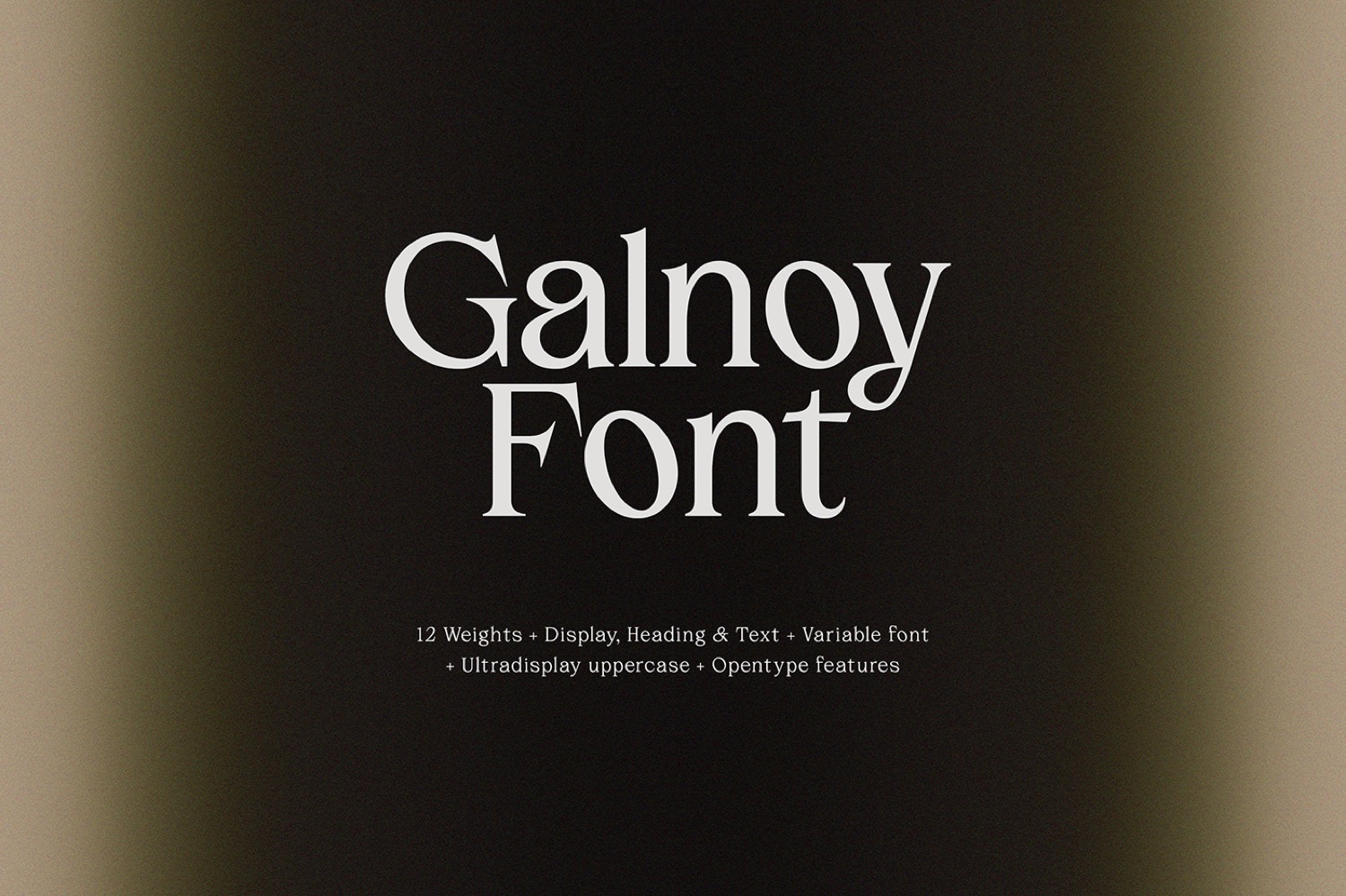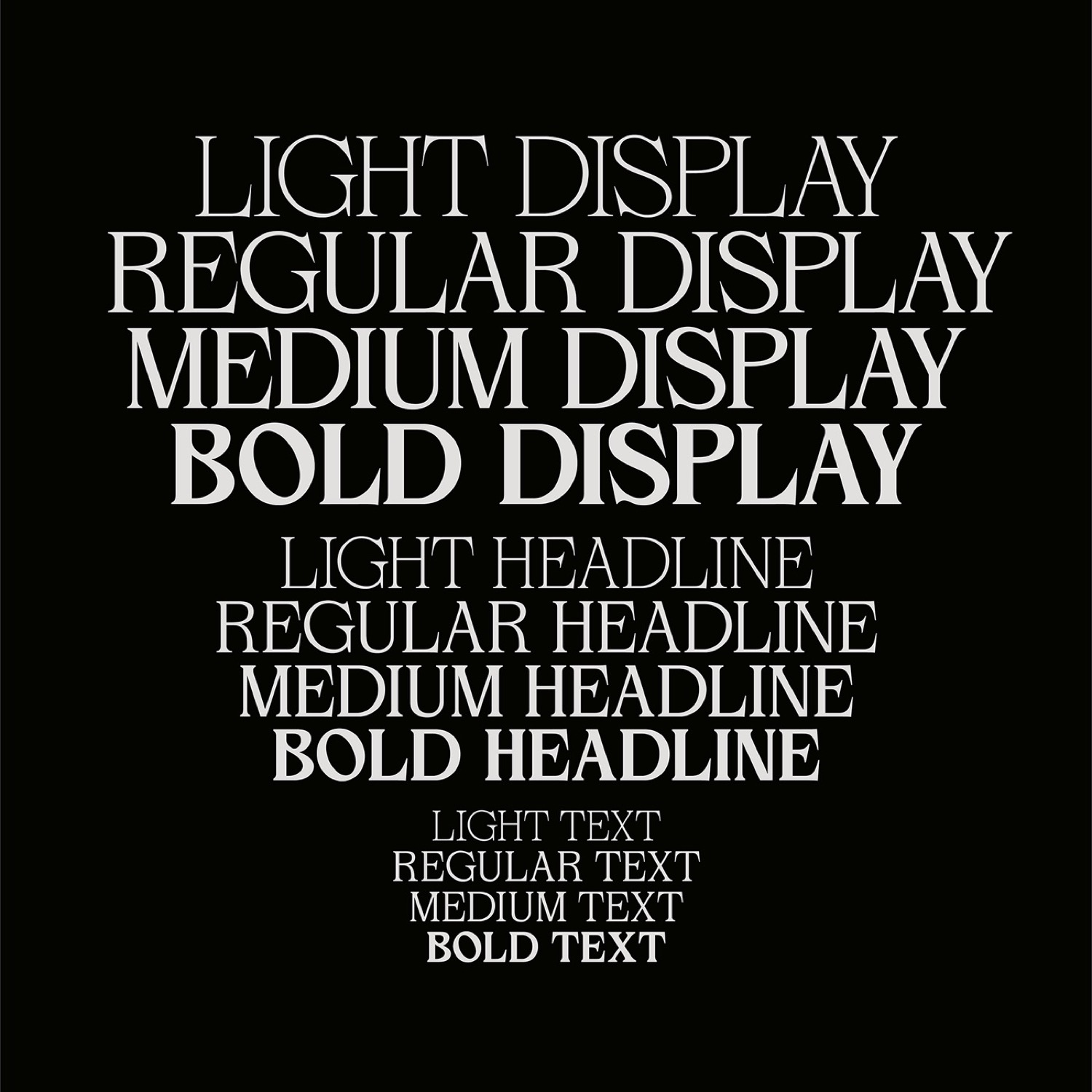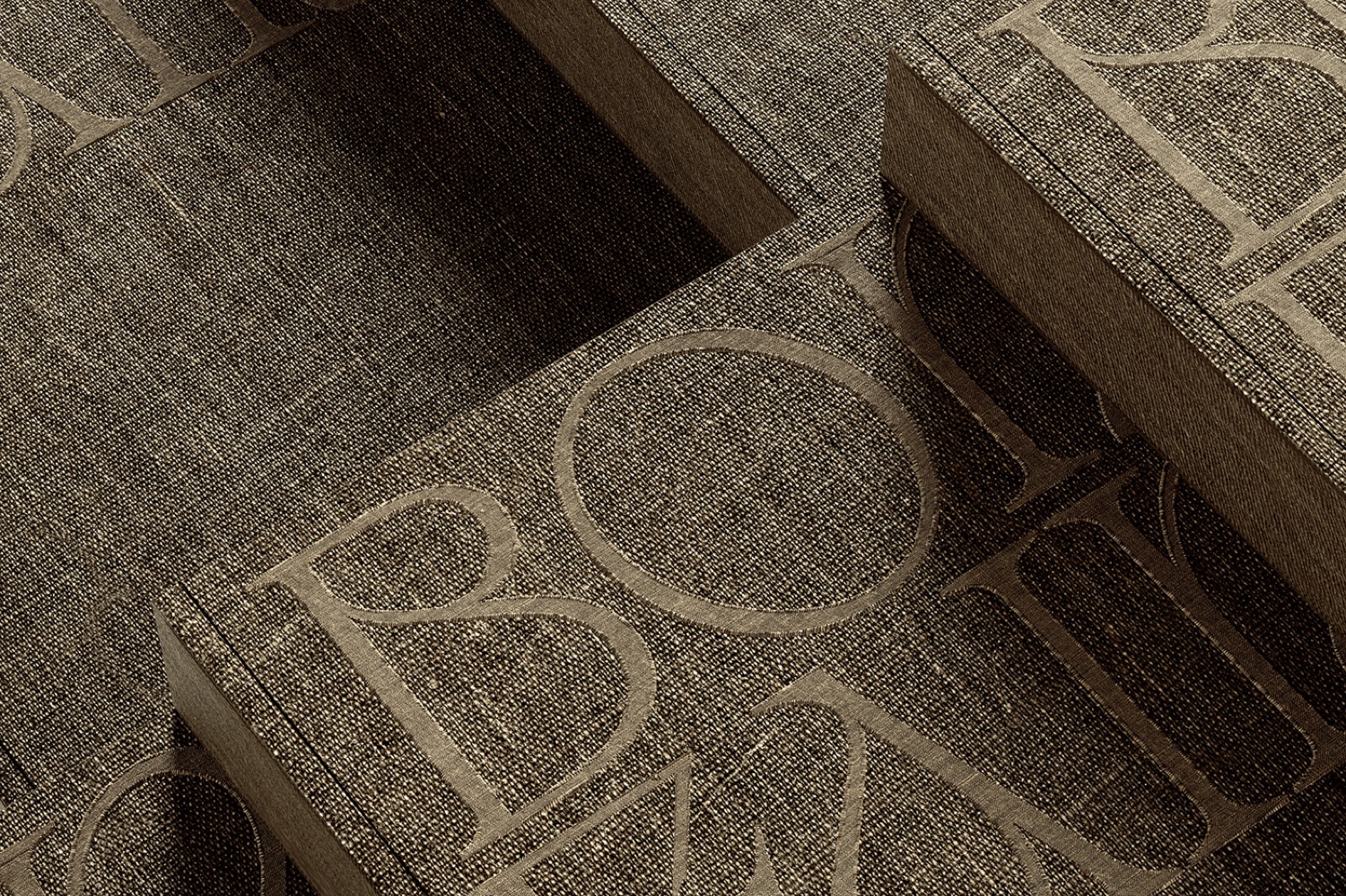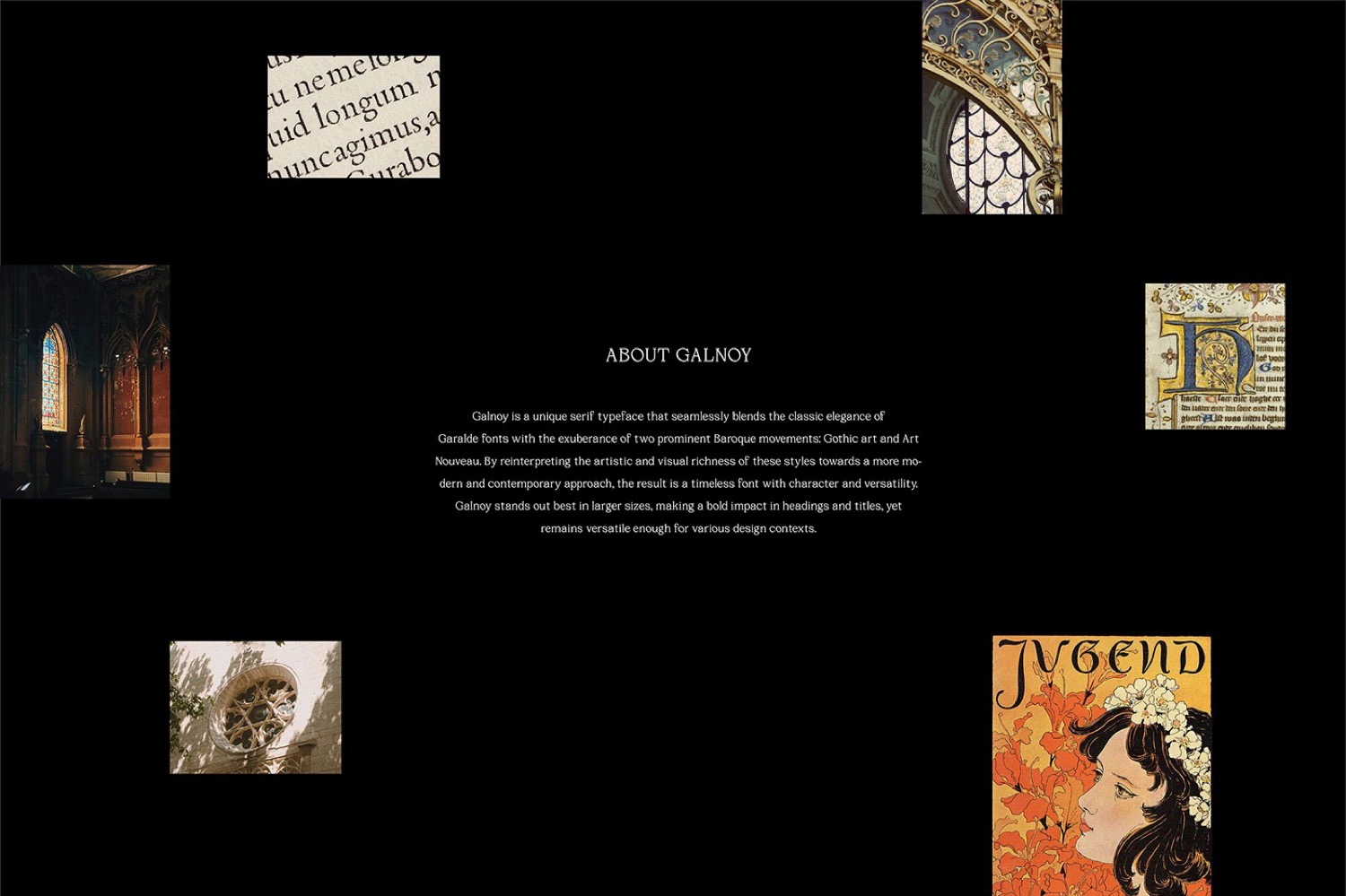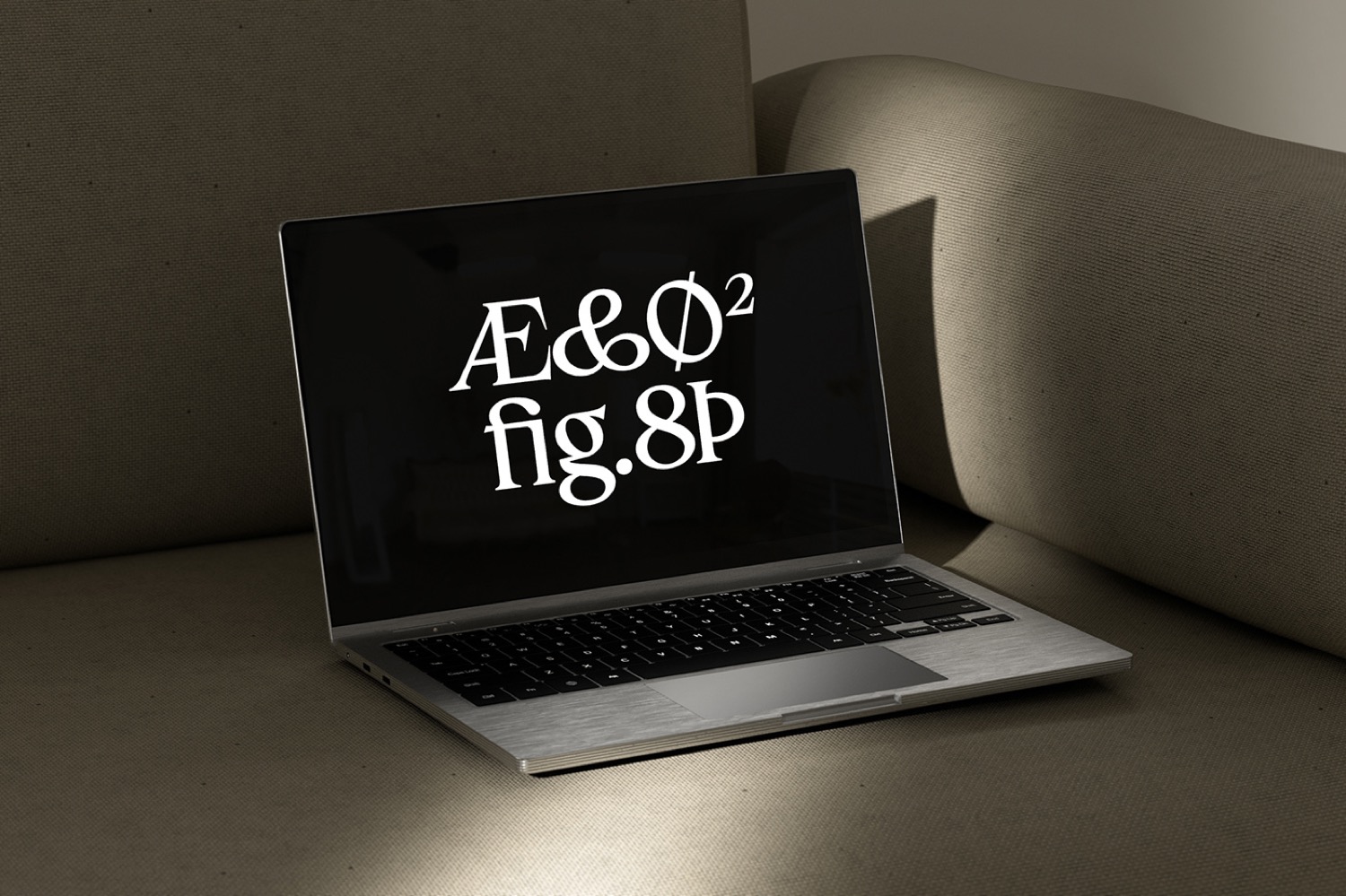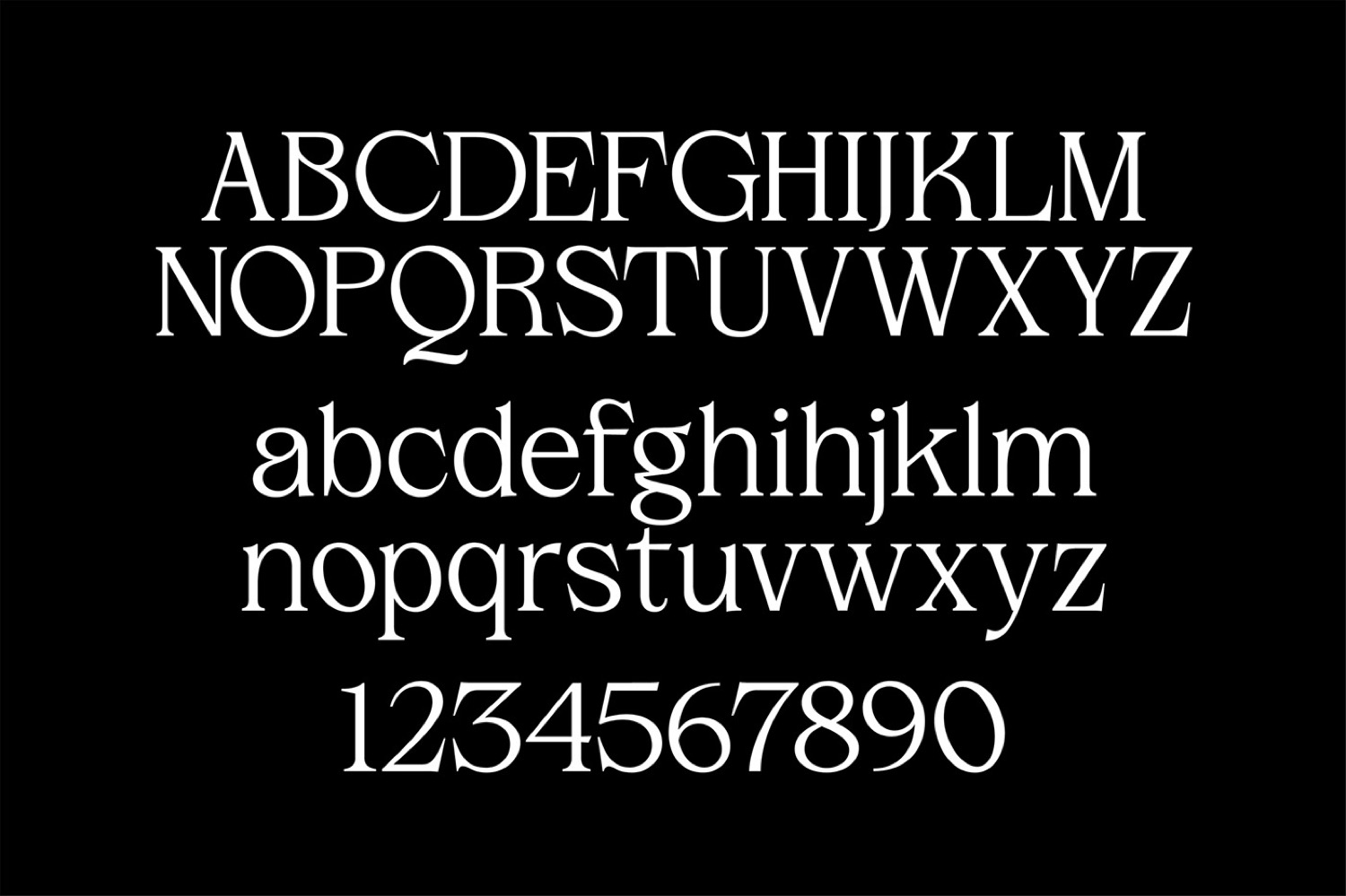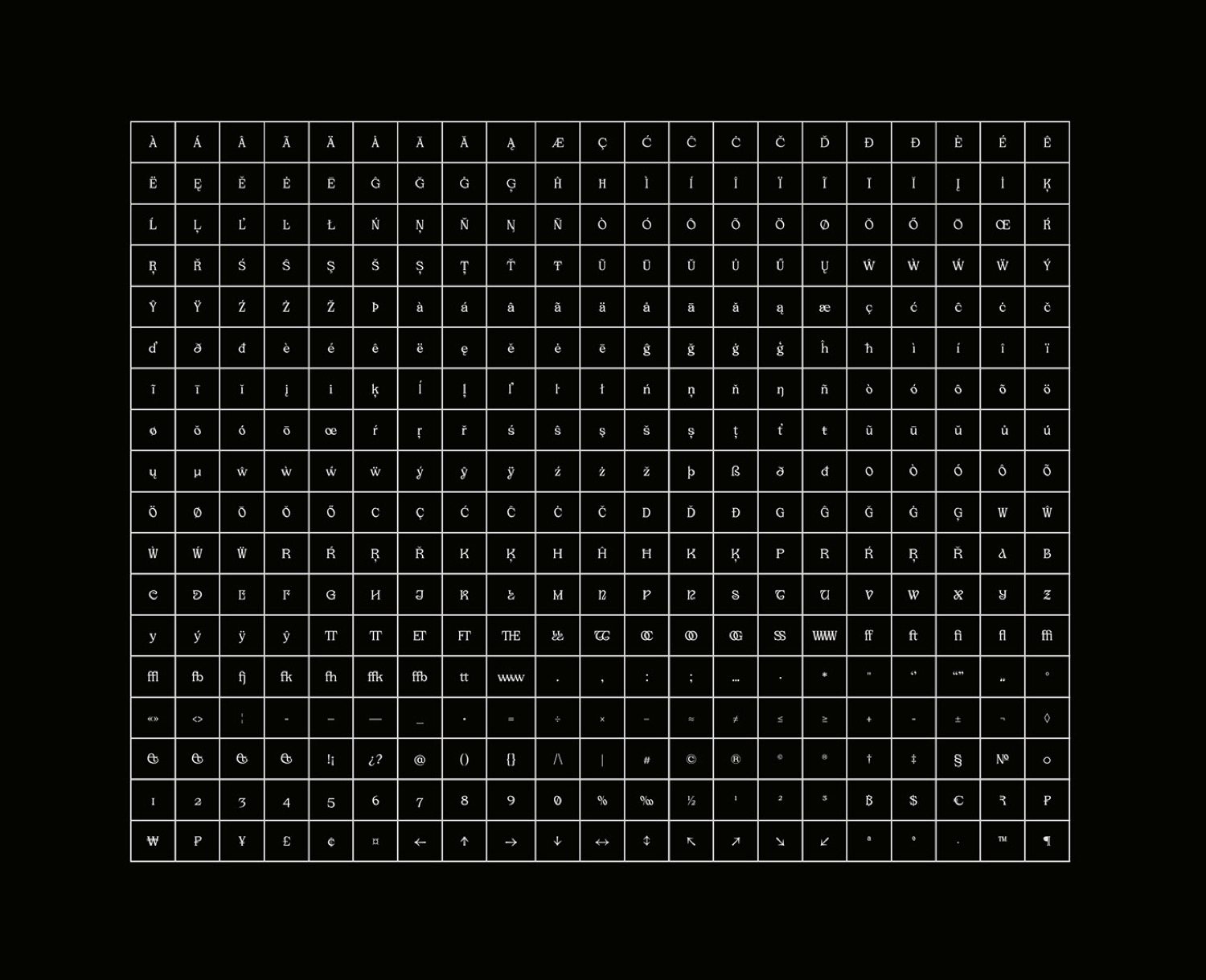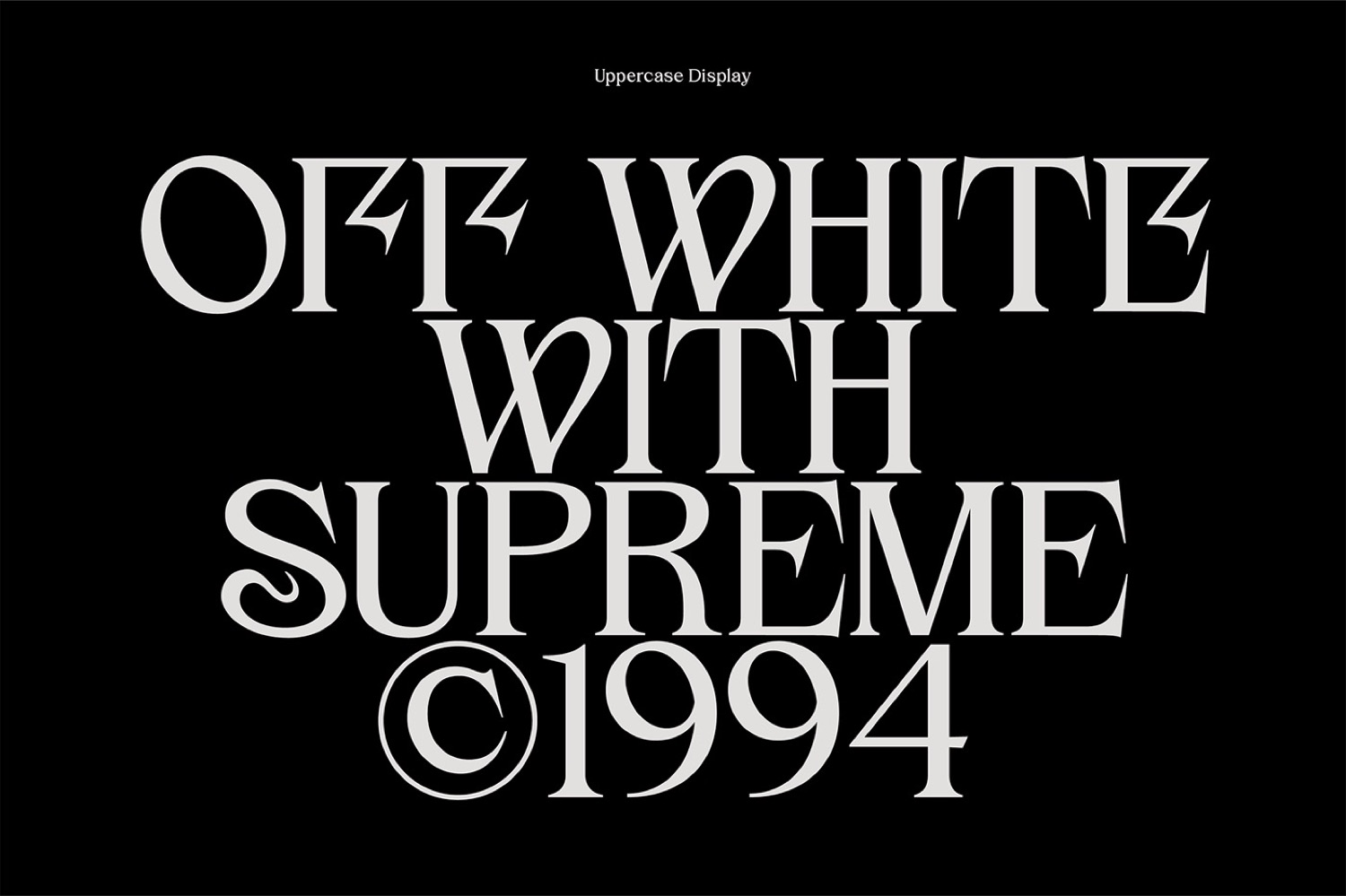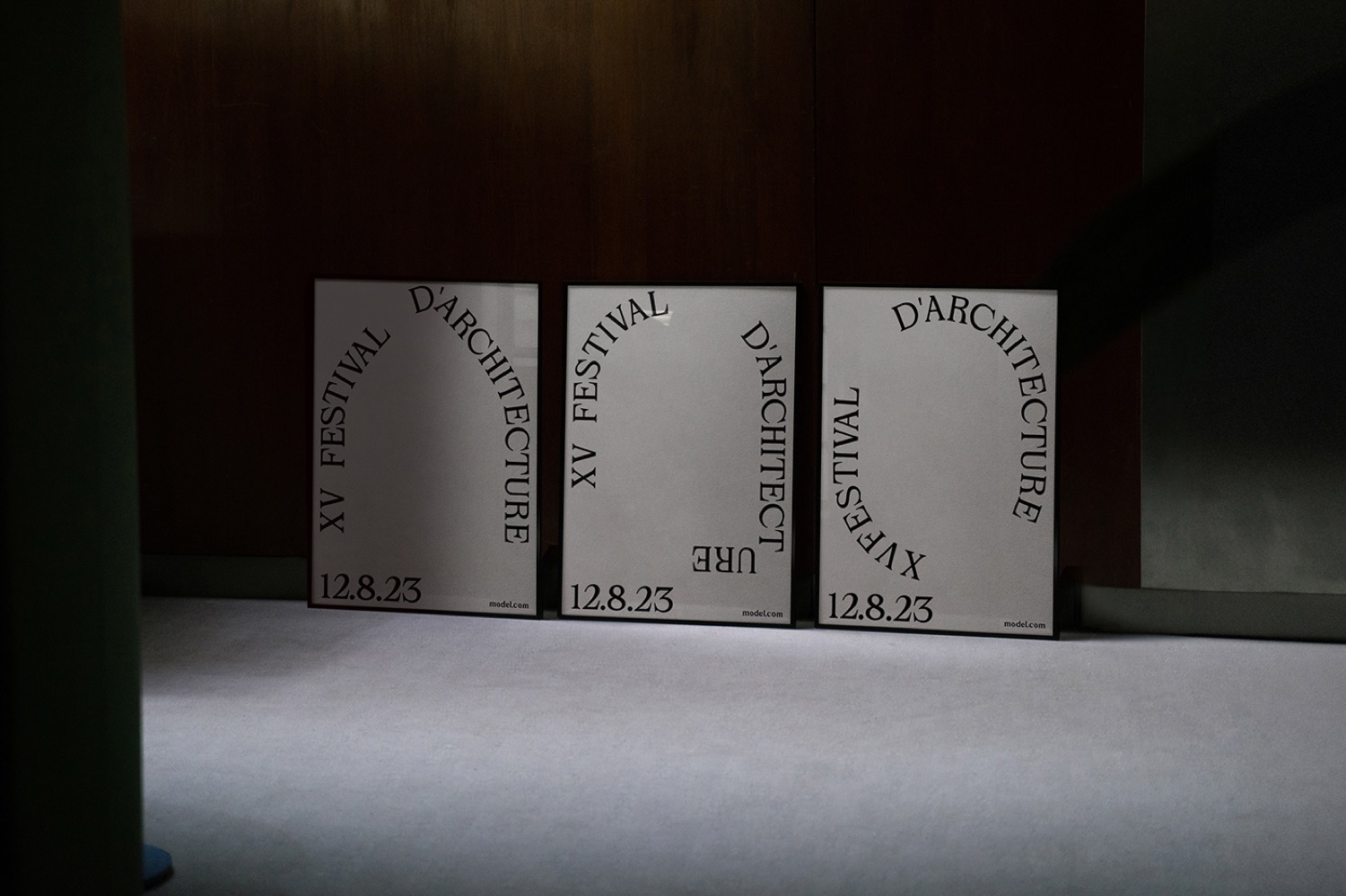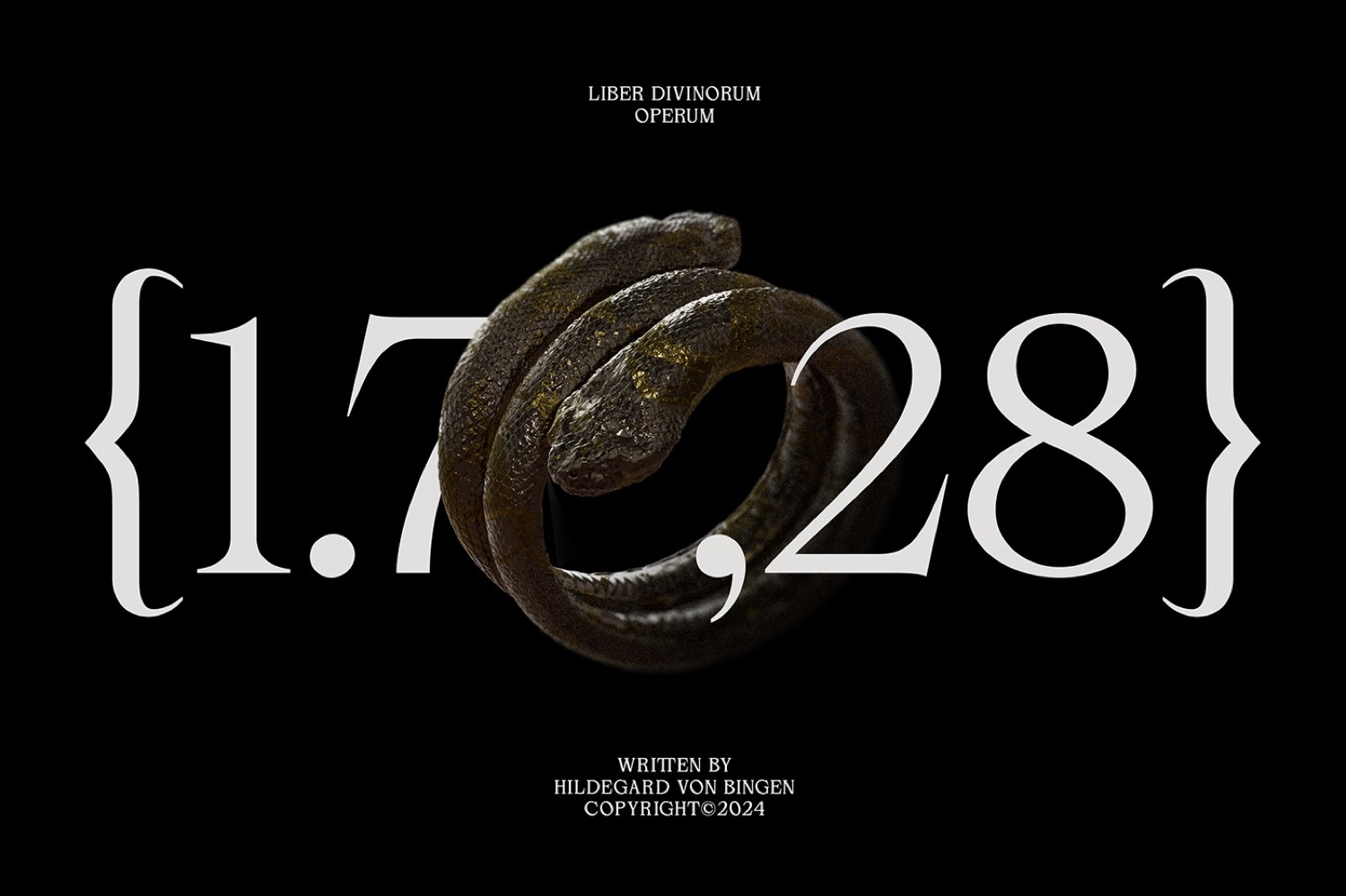
Galnoy by
is a unique serif typeface that seamlessly blends the classic elegance of Garalde fonts with the exuberance of two prominent Baroque movements: Gothic art and Art Nouveau. By reinterpreting the artistic and visual richness of these styles toward a more modern and contemporary approach, the result is a timeless font with character and versatility. Galnoy stands out best in larger sizes, making a bold impact in headings and titles, yet remains versatile enough for various design contexts.